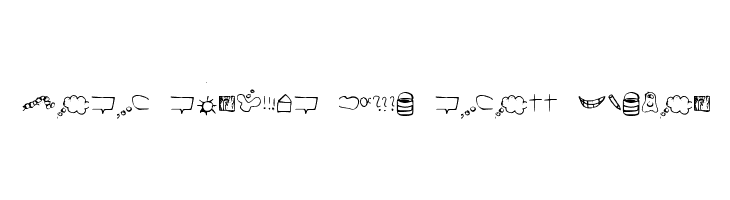
( Marcos Augusto Farhat - www.farhatguitar.com )
Font consists of guitar chord diagram glyphs.
( MiniCandy - Miranda )
A whimsical collection of playful and enchanting dingbats featuring princess-themed symbols.
( MissGrotesque )
A bold pictogram set with beach and ocean motifs.
( Nils Stahl )
A playful and eclectic mix of hand-drawn symbols and doodles with a whimsical style.
( Puff - - www.puff.com.ar )
Cartoon character dingbat font with bold, rounded illustrations.
( Qkila - Quentin Aquila - www.creativefabrica.com/designer/qkila/ )
Cityscape silhouette font with detailed urban and landmark elements.
( Vladimir Nikolic - www.coroflot.com/vladimirnikolic )
Ornate, hand-drawn esoteric symbol dingbats in a vintage tattoo style.
( Vladimir Nikolic - www.coroflot.com/vladimirnikolic )
Cartoon face dingbat font with bold, playful style.
( Woodcutter - woodcutter Manero - www.woodcutter.es )
Decorative fairy tale icon font with playful, bold silhouettes.